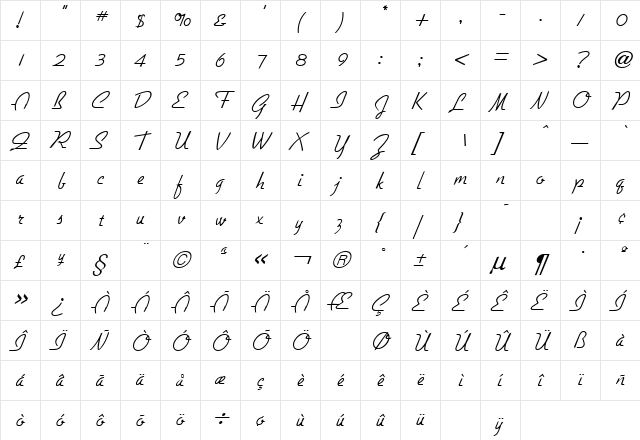
Gillies Regular
Design Context for Gillies Typeface
Gillies takes a measured approach to typography — its balanced proportions and neutral character make it a reliable workhorse for both digital and print work.